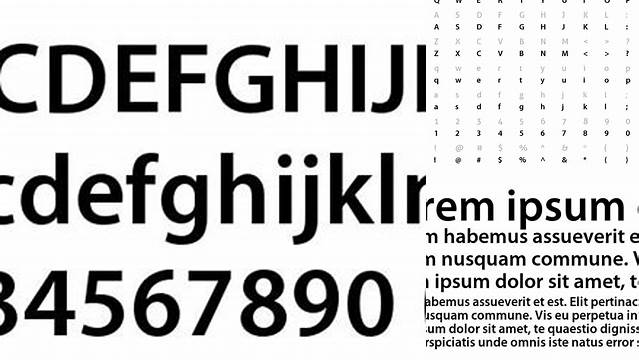
Why Myriad Pro Semibold is a Design Essential
Okay, so why is everyone so jazzed about Myriad Pro Semibold? Well, this font is a real workhorse, a go-to for designers and anyone who needs a clean, readable typeface. Think of it as the Switzerland of fonts – neutral, reliable, and works well in almost any situation. The semibold weight, in particular, strikes a perfect balance. It's not as heavy as a bold, so it doesn't scream at you, but it's definitely more noticeable than a regular weight, making it ideal for headings, subheadings, and emphasizing key text. It's a member of the larger Myriad Pro family, which has a range of weights and styles, giving you tons of flexibility. Whether you're working on a website, a presentation, a document, or even a print project, Myriad Pro Semibold can handle it. This font's clarity and legibility make it a solid choice for both print and digital designs. Plus, it has a modern, friendly feel that doesn't feel dated. It's a good font for text-heavy content because it is very readable, even at smaller sizes, so it's easy on the eyes. Another awesome thing about Myriad Pro Semibold is its availability. Because it's a widely used font, you can be sure that it will have great compatibility across various operating systems and software, meaning fewer formatting headaches for you. The clean lines and simple letterforms make it easy to pair with other fonts. It won't compete for attention; instead, it will complement your design. This versatility makes Myriad Pro Semibold a valuable asset in any designer's toolkit, making it one of the fonts that will make your design more professional and enhance your project's overall look. Whether you're a seasoned designer or a newbie, having this font in your collection is a game-changer. It's reliable, easy to read, and versatile, making it the perfect font for any project.